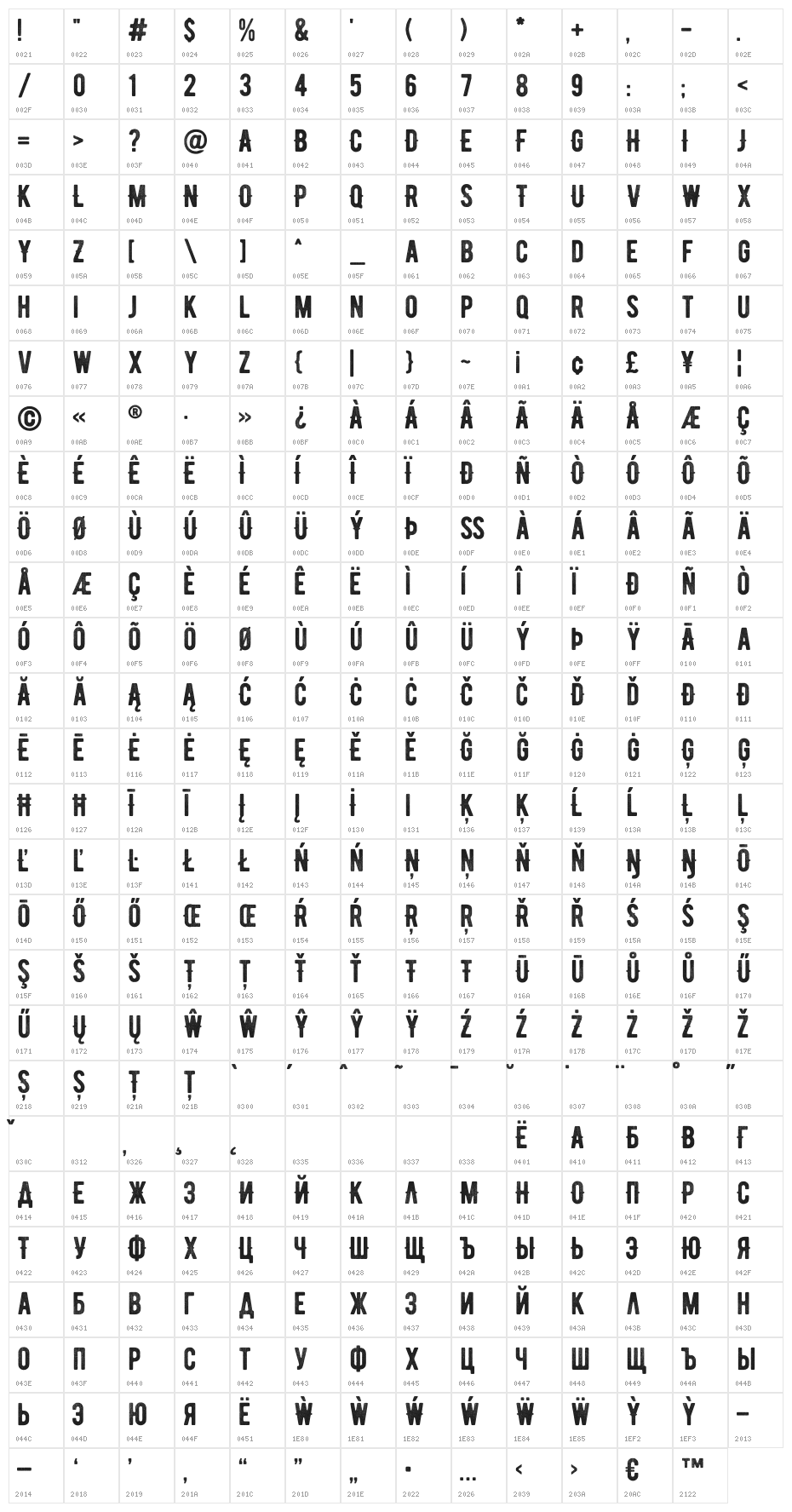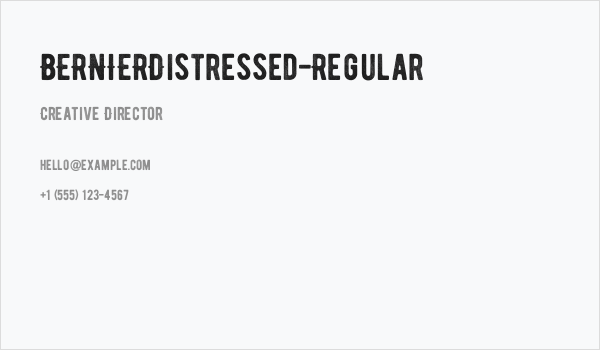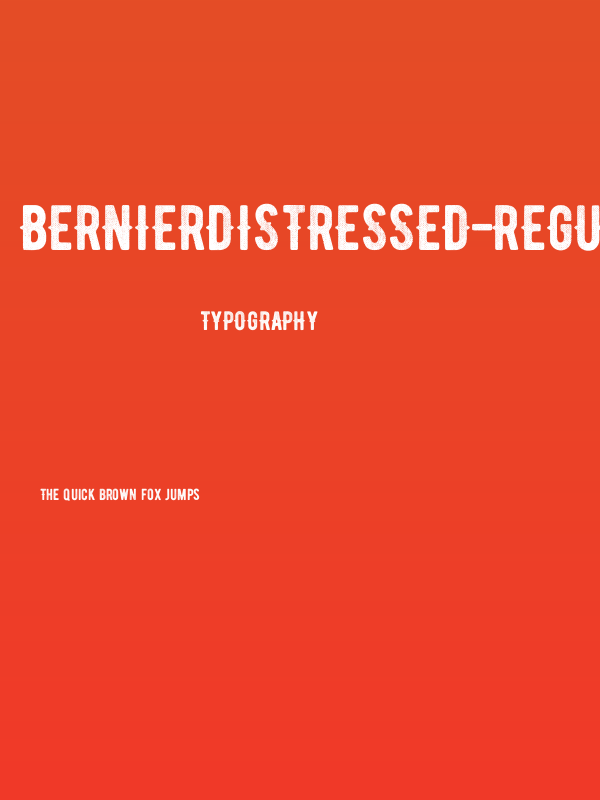
BERNIERDistressed-Regular Font
BERNIERDistressed-Regular Description
This font features a bold, distressed style with a vintage, rugged appearance. The characters have a textured look, giving them a worn and weathered feel, reminiscent of old signage or print. The uppercase letters are prominent and sturdy, while the numbers and special characters maintain the same distressed aesthetic. The overall design conveys a sense of strength and durability, making it suitable for projects that require a bold statement with a touch of nostalgia.
Overall StyleVintage
Proposed ProjectsIdeal for vintage-themed posters, branding for outdoor or adventure products, and any design needing a strong, nostalgic touch.